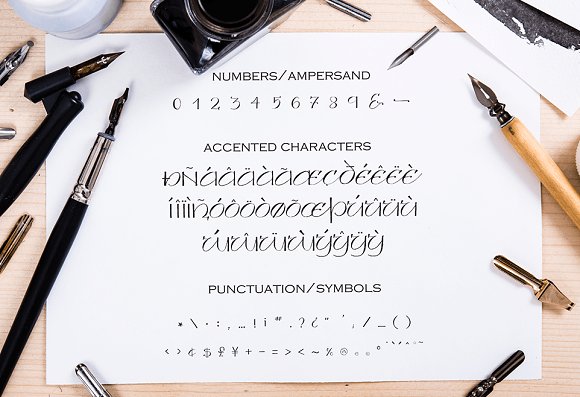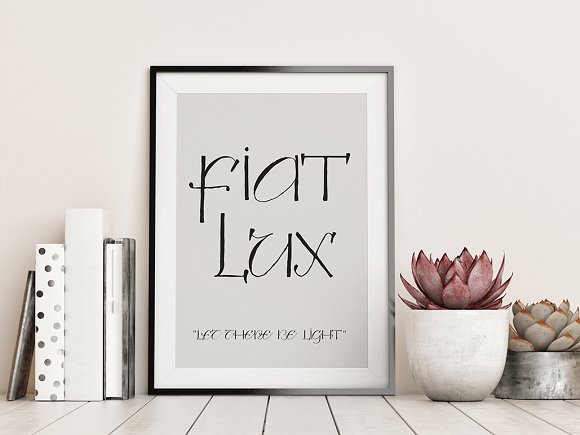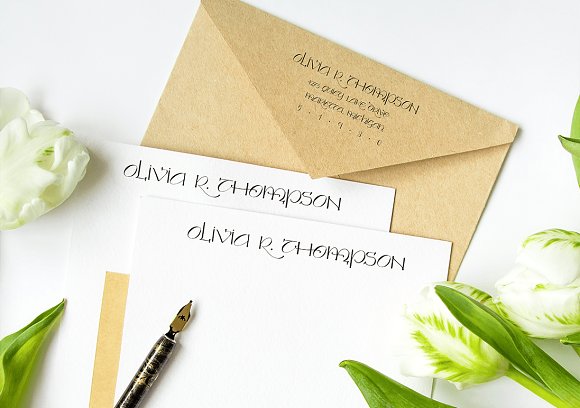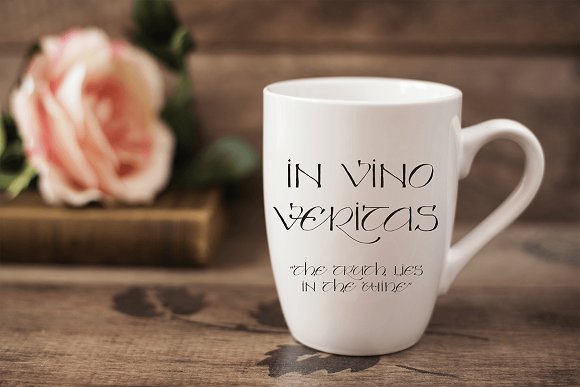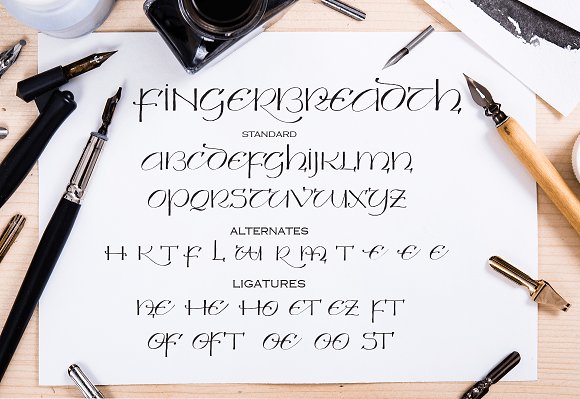
Fingerbreadth Font
The uncial (latin for “inch”) is a calligraphic style penmanship that is normally written with a flat tip pen. It is mainly seen with ancient Latin and Greek manuscripts. Most uncial is written using only the x-height for a letter with very few extenders or descenders. I have designed Fingerbreadth with the traditional uncial in mind but created a modern translation with the beloved pointed pen. The result is a beautiful, delicate and classic font.